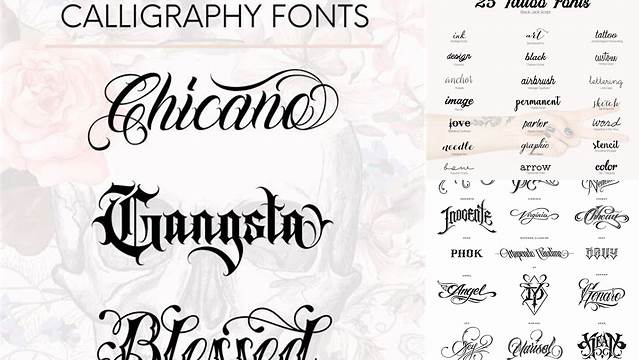
Tattoo Fonts For Names: Your Ultimate Guide
So, you're thinking about getting a tattoo of a name, huh? Awesome! Whether it's for a loved one, yourself, or even a beloved pet, name tattoos can be super meaningful. But before you rush off to the tattoo parlor, there's a crucial decision to make: the font. The right tattoo fonts for names can make or break the entire design. It's not just about picking something that looks cool; it's about choosing a font that reflects the personality and significance of the name itself. This guide will walk you through everything you need to know about selecting the perfect tattoo font for your name tattoo. So, grab a coffee, get comfy, and let's dive in!
Why Font Choice Matters for Name Tattoos
Okay, guys, let's get real for a second. The font you choose for your name tattoo is way more important than you might think. It's not just a matter of aesthetics; it's about conveying a message. Think of it this way: fonts have personalities. A delicate script whispers elegance, while a bold, blocky font screams strength and confidence. When choosing tattoo fonts for names, the goal is to find a font that harmonizes with the name's meaning, the wearer's personality, and the overall design of the tattoo. Imagine you are inking a tribute to your grandmother, a woman of grace and wisdom. Would you choose a harsh, graffiti-style font? Probably not. A flowing, elegant script would be far more fitting.
Consider the legibility too! Intricate, highly stylized fonts might look stunning on paper, but they can become a blurry mess on the skin, especially over time as the ink spreads slightly. A beautiful font that's unreadable defeats the purpose of the tattoo. Think about the placement of the tattoo as well. A larger area like the back or thigh can accommodate a more elaborate font, while a smaller area like the wrist or finger requires a simpler, more concise font. Remember, your tattoo is a permanent piece of art. Choosing the right tattoo fonts for names ensures that your tattoo is not only beautiful but also meaningful and legible for years to come. Don't rush this decision; take your time to explore different options and find a font that truly speaks to you and accurately represents the name you're immortalizing on your skin.
Popular Tattoo Font Styles for Names
Alright, let's get down to the fun part: exploring different font styles! When it comes to tattoo fonts for names, there are tons of options to choose from. It can be overwhelming, but breaking it down into categories can make the selection process a whole lot easier. Here are some of the most popular styles you'll encounter:
- Script Fonts: These are elegant, flowing fonts that mimic handwriting. They're perfect for names that evoke grace, sophistication, or romance. Think of calligraphy-style fonts with swirls and flourishes. Examples include italic fonts, Spencerian script, and various brush scripts. Script fonts add a touch of class and are often chosen for tattoos honoring loved ones. Just be mindful of legibility; very intricate scripts can blur over time. Make sure your tattoo artist is experienced in working with script fonts to ensure a clean and lasting design.
- Serif Fonts: Serif fonts have small decorative strokes at the ends of the letters. They project a sense of tradition, authority, and timelessness. Think of classic fonts like Times New Roman or Garamond. While not as commonly used as script fonts for name tattoos, serif fonts can be a great choice if you want a more formal and understated look. They work well for names that have a strong historical or familial significance. Consider a bolder serif font for better visibility, especially if the tattoo is small.
- Sans-Serif Fonts: Sans-serif fonts, as the name suggests, lack the decorative strokes of serif fonts. They're clean, modern, and minimalist. Think of fonts like Arial or Helvetica. Sans-serif fonts are a great option if you prefer a simple and contemporary aesthetic. They work well for names that are short and punchy. They are also very legible, making them a practical choice for smaller tattoos or areas where the skin might stretch over time. The simplicity of sans-serif fonts can also allow the name itself to take center stage.
- Blackletter Fonts: Blackletter fonts, also known as Gothic or Old English fonts, have a dramatic and ornate style. They evoke a sense of history, tradition, and strength. Think of the fonts you often see in old manuscripts or certificates. Blackletter fonts can be a bold and eye-catching choice for name tattoos, but they're not for everyone. They can be quite intricate and require a skilled tattoo artist to execute well. Blackletter fonts work best for larger tattoos where the details can be clearly seen. Be aware that some people associate blackletter fonts with specific subcultures, so consider the potential connotations before making your decision.
- Decorative Fonts: This is a broad category that includes any font that doesn't fit neatly into the other categories. Decorative fonts can range from whimsical and playful to edgy and bold. Think of fonts that incorporate symbols, patterns, or unique letterforms. Decorative fonts can be a great way to express your individuality and create a truly one-of-a-kind name tattoo. However, it's important to choose a decorative font carefully. Make sure it's legible and that it accurately reflects the personality of the name and the wearer. A skilled tattoo artist can help you find or even create a custom decorative font that's perfect for your tattoo.
Factors to Consider When Choosing a Font
Okay, so you know the different font styles, but how do you actually choose the right one? Don't worry, I got you! Several factors come into play when selecting tattoo fonts for names. Let's break them down:
- Name Length: The length of the name is a major consideration. A short name like "Ava" can work well with almost any font style, while a longer name like "Elizabeth" might require a more concise font to fit comfortably within the desired tattoo area. For longer names, consider using a smaller font size or abbreviating the name. You might also want to explore fonts that are narrower or more condensed. Conversely, a very short name might benefit from a bolder or more decorative font to give it more visual impact.
- Personal Style: This is your tattoo, so it should reflect your personal style! Are you drawn to classic and elegant designs? Or do you prefer something more modern and edgy? Choose a font that aligns with your overall aesthetic. If you have a specific style of clothing, jewelry, or home decor, consider how the font will complement those elements. Think about your personality too. Are you quiet and reserved, or outgoing and bold? Your font choice should reflect who you are as an individual.
- Tattoo Placement: Where are you planning to get the tattoo? The placement of the tattoo will influence the size and style of font you can choose. A smaller area like the wrist or ankle requires a simpler, more legible font. A larger area like the back or chest can accommodate a more elaborate and detailed font. Consider the shape of the body part as well. A curved area like the arm might require a font that flows with the contours of the body. Also, remember that tattoos on areas that are frequently exposed to the sun or friction might fade more quickly, so choose a font that will still be legible even if it fades slightly over time.
- Legibility: This is crucial! No matter how beautiful a font is, it's useless if you can't read it. Choose a font that is clear and easy to read, even from a distance. Avoid fonts that are too intricate or stylized, as they can become blurry over time. Ask your tattoo artist for their opinion on legibility. They have experience working with different fonts and can advise you on which ones will hold up well over the years. Before committing to a font, have your tattoo artist create a stencil of the name in the chosen font and place it on your skin. This will give you a better idea of how the tattoo will look and whether it's legible.
- Meaning and Symbolism: Does the name have any particular meaning or symbolism? Consider choosing a font that reflects those qualities. For example, if the name means "strength," you might choose a bold and powerful font. If the name is associated with a particular culture or heritage, you might choose a font that is representative of that culture. Research the etymology of the name to uncover any hidden meanings or associations. You might be surprised at what you discover! Incorporating meaning and symbolism into your font choice can add depth and significance to your tattoo.
Tips for Working with Your Tattoo Artist
Your tattoo artist is your partner in this process. They can offer valuable insights and guidance. Here are some tips for working with your artist to find the perfect font:
- Bring Examples: Gather examples of fonts that you like. Show your artist what appeals to you about each font. This will give them a better understanding of your style and preferences.
- Ask for Recommendations: Your artist has experience working with different fonts and can recommend fonts that will work well for your design and placement.
- Consider Their Style: Choose an artist whose style aligns with the font you want. Some artists specialize in script fonts, while others are more skilled in blackletter or traditional styles.
- Don't Be Afraid to Ask Questions: Ask your artist about the legibility of different fonts, how they will hold up over time, and any potential challenges associated with your chosen font and placement.
- Trust Their Expertise: Ultimately, your tattoo artist is the expert. Trust their judgment and be open to their suggestions. They want to create a tattoo that you'll love for years to come.
Choosing tattoo fonts for names is a big decision, but it doesn't have to be stressful. By considering the factors outlined in this guide and working closely with your tattoo artist, you can find the perfect font to create a meaningful and beautiful tattoo. Remember to take your time, do your research, and choose a font that truly speaks to you. Good luck, and happy inking!